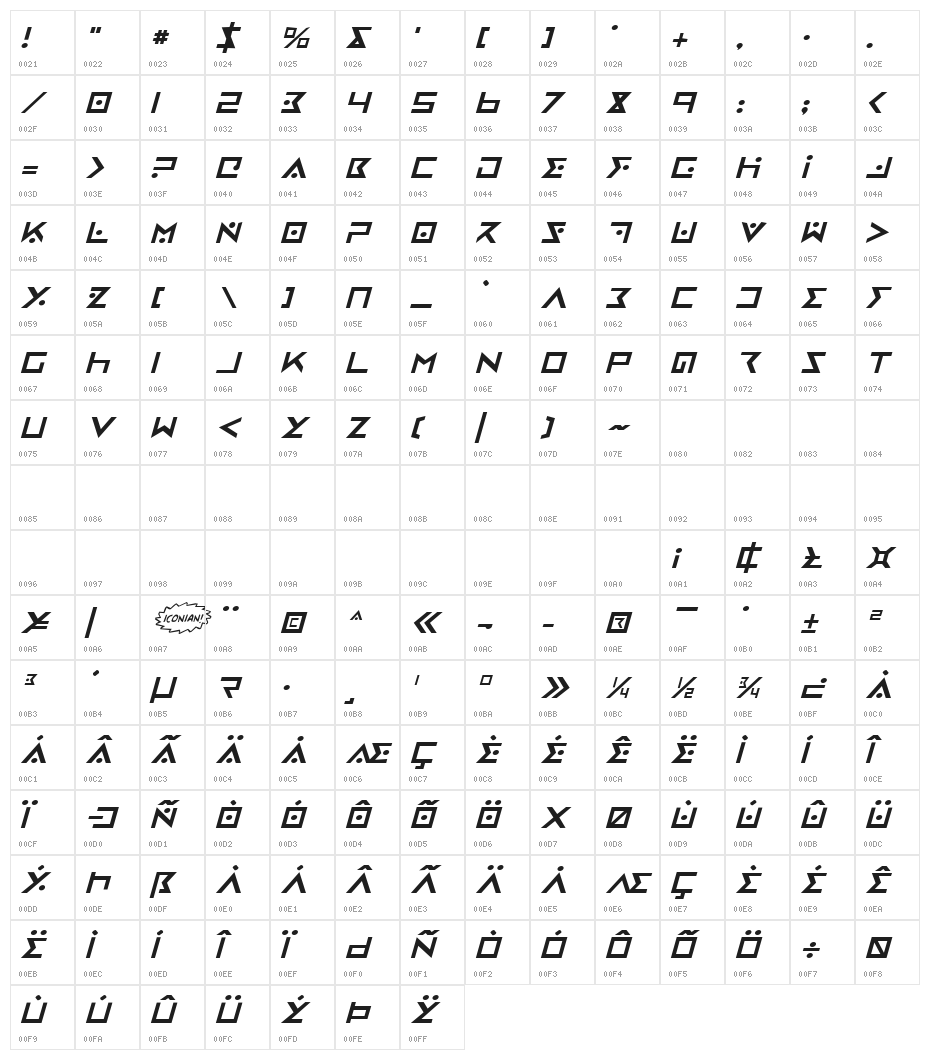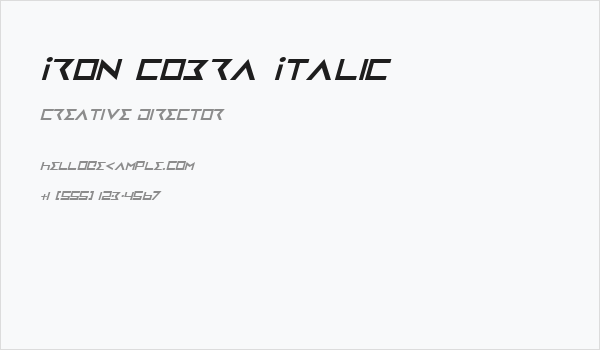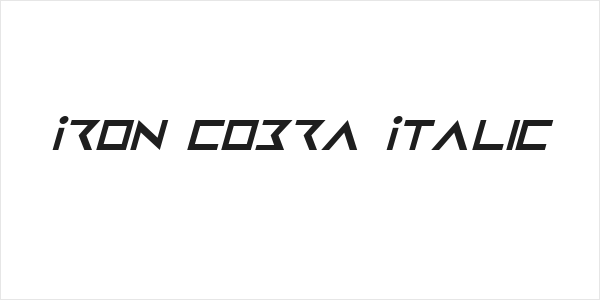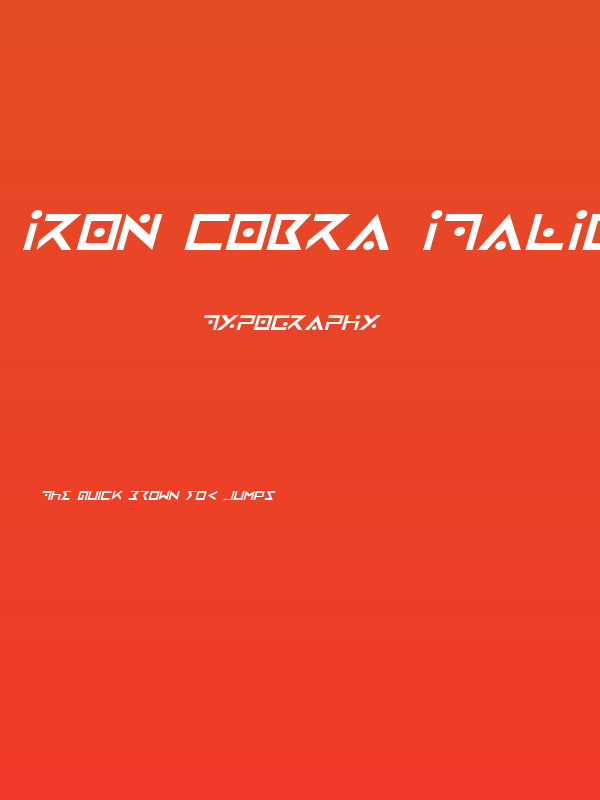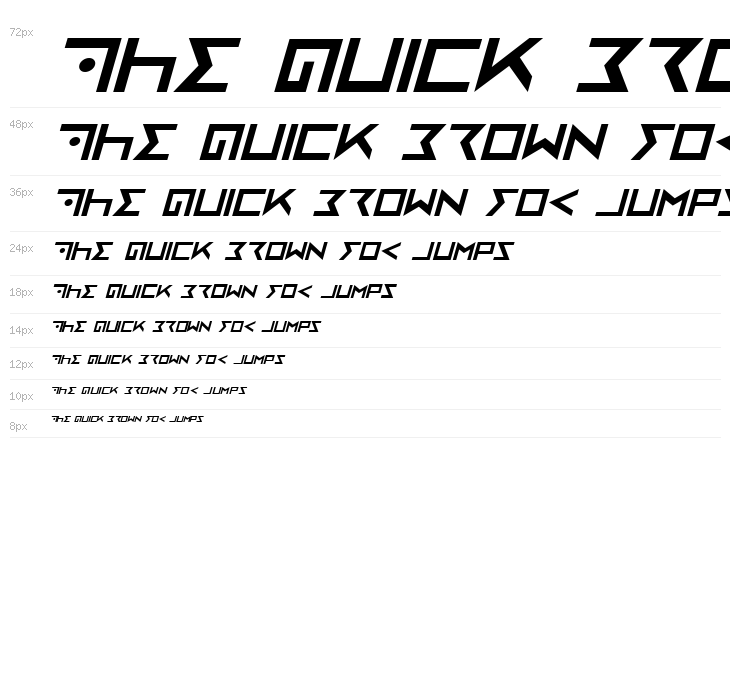
Iron Cobra Italic Font
Iron Cobra Italic Description
This font features a bold, angular design with a futuristic and geometric aesthetic. The characters are sharply defined with a consistent slant, giving an italicized appearance. Each letter is distinct, with unique cutouts and angles that create a sense of movement and dynamism. The font includes both uppercase and lowercase letters, numerals, and a variety of special characters, all maintaining the same stylistic theme. The design is highly stylized, making it suitable for projects that require a modern and edgy look.
| Proposed Projects | Ideal for sci-fi themed designs, video game titles, tech branding, and modern posters. |